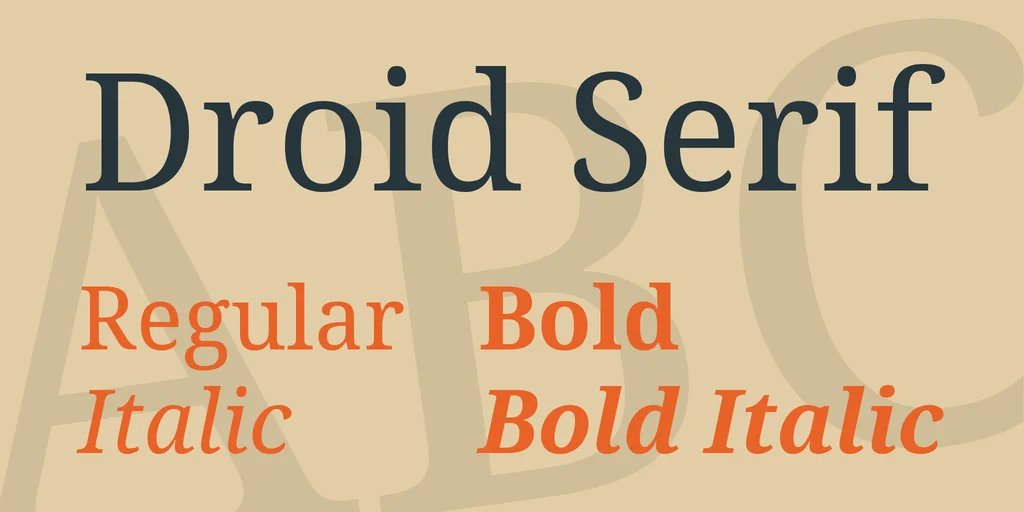
Droid Serif Font Family
Droid Serif Font Family is perfect for book publishing, academic papers, newspaper layouts, magazine articles, blog content, e-book design, legal documents, corporate reports, educational materials, research publications, and professional correspondence.
Droid Serif Font Family is exciting because it was specifically designed for optimal screen readability while maintaining the classic elegance of traditional serif typography. Originally developed by Google for Android devices, this font combines cutting-edge digital optimization with timeless serif characteristics, making it incredibly versatile for both print and digital applications.
The Droid Serif Font Family includes Regular, Italic, Bold, and Bold Italic variants, providing designers with a complete range of typographic options. Each weight maintains consistent character spacing and proportions, ensuring seamless integration across different text hierarchies and design layouts.
The technical excellence of Droid Serif Font Family stems from its digital-first design approach, where every letterform was crafted considering modern display technologies. Unlike traditional serif fonts that were adapted for digital use, this family was born digital, resulting in superior clarity and readability on screens of all sizes. Its balanced stroke weights and moderate contrast make it equally effective for body text and headlines.
Publishing professionals and content creators consistently choose Droid Serif Font Family for its reliability and aesthetic appeal. The font excels in editorial design, where readability and visual comfort are paramount. Its clean, approachable character makes it particularly suitable for educational content, technical documentation, and user interfaces where clarity is essential.
This font family's comprehensive character set supports multiple languages and includes all necessary punctuation marks, mathematical symbols, and special characters required for professional typesetting. The careful balance between traditional serif elegance and modern functionality makes it an indispensable tool for contemporary design projects across all media formats.